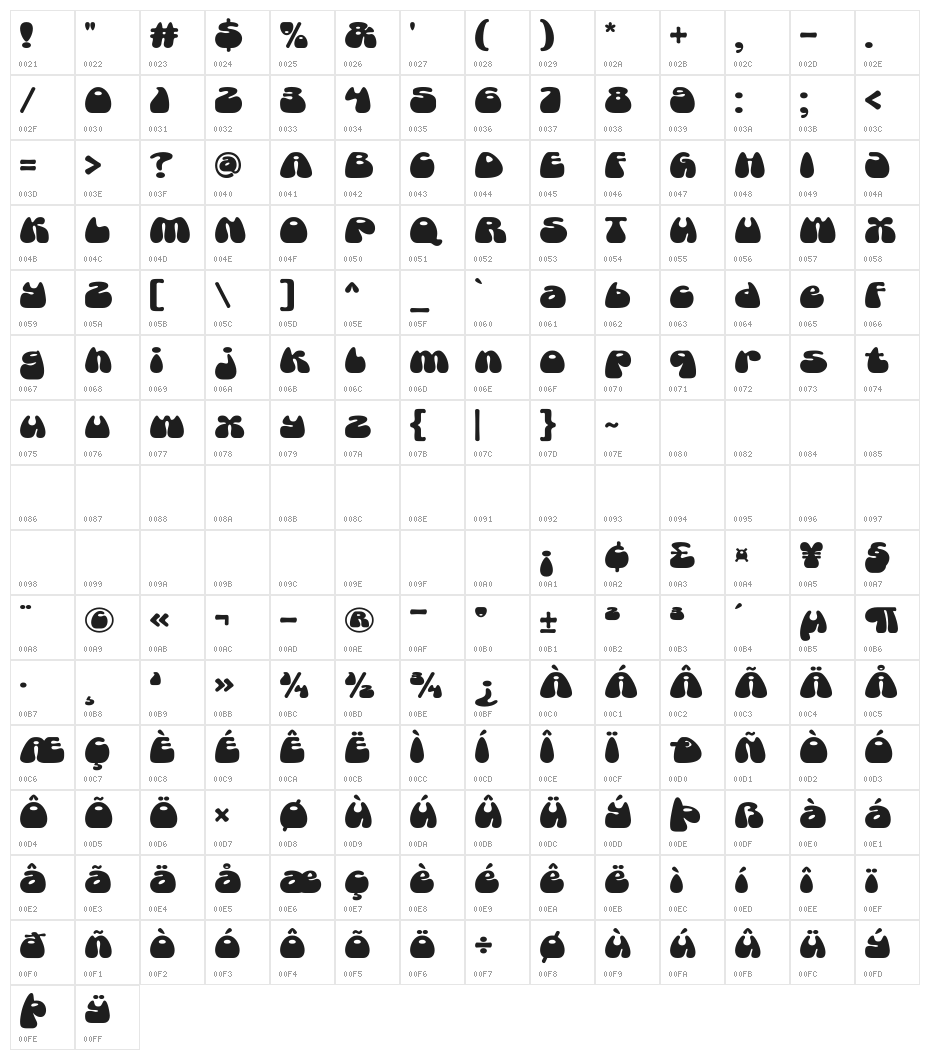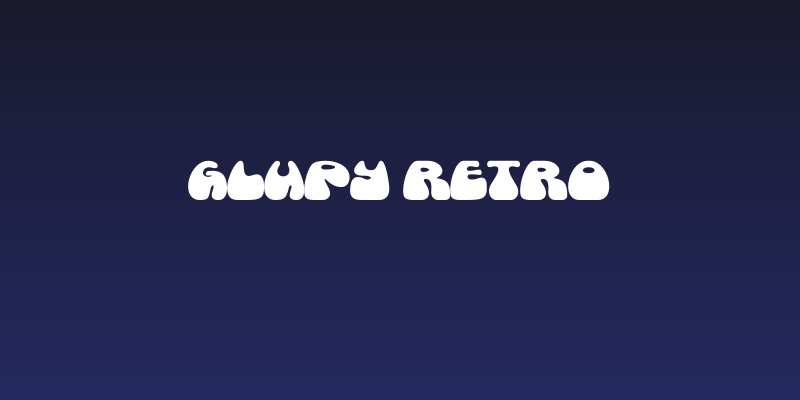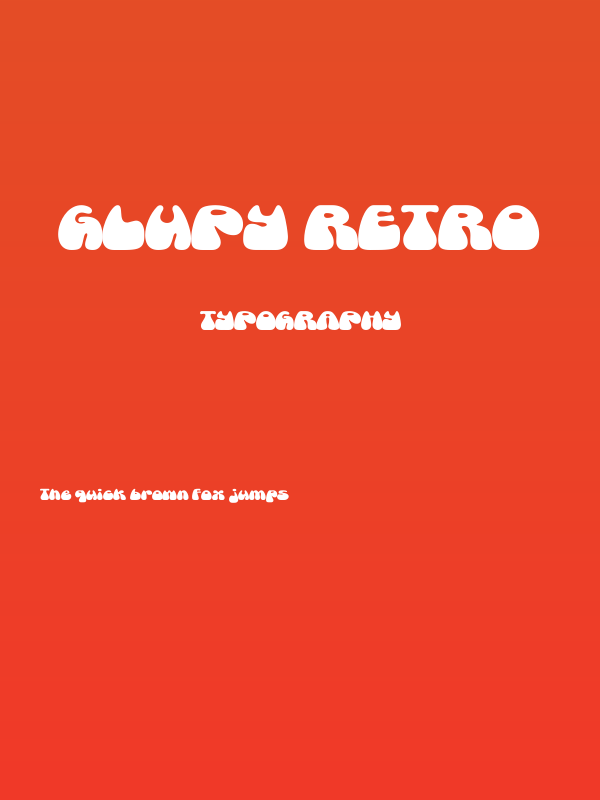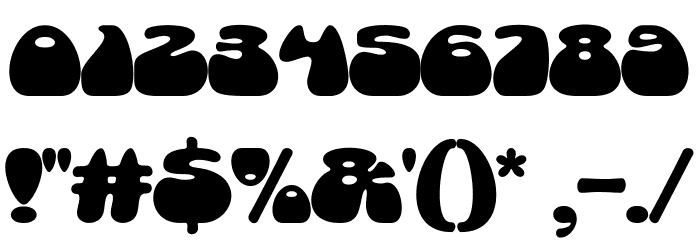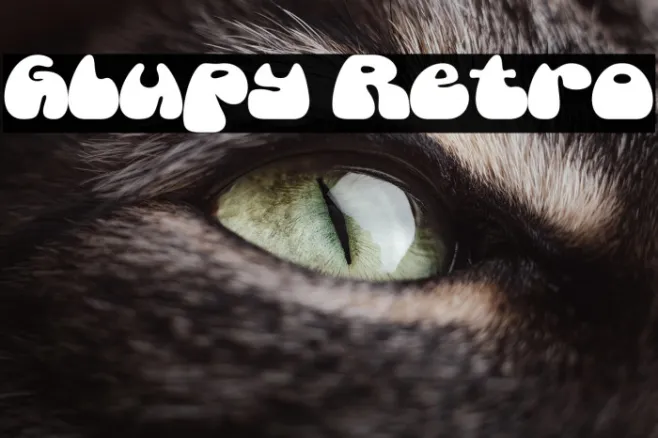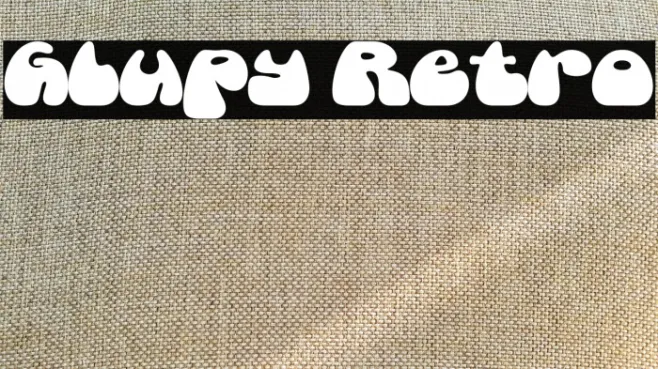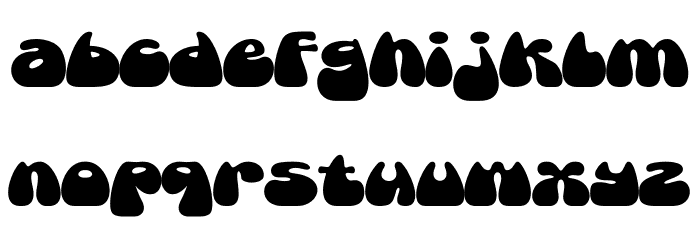
Glupy Retro Font
Glupy Retro Description
This font features a bold, playful design with rounded, bubble-like characters that evoke a sense of fun and nostalgia. The letters are thick and heavy, with a consistent stroke width that gives them a uniform appearance. The overall style is reminiscent of retro designs from the 1970s, characterized by its soft curves and exaggerated forms. The font includes both uppercase and lowercase letters, numbers, and a variety of special characters, all maintaining the same bubbly aesthetic. Its unique style makes it stand out, perfect for projects that require a touch of whimsy and creativity.
| Overall Style | Retro |
| Use Case | Logos, Posters, Headlines |
| Proposed Projects | Ideal for vintage-themed posters, children's book covers, playful branding, and retro-style advertisements. |